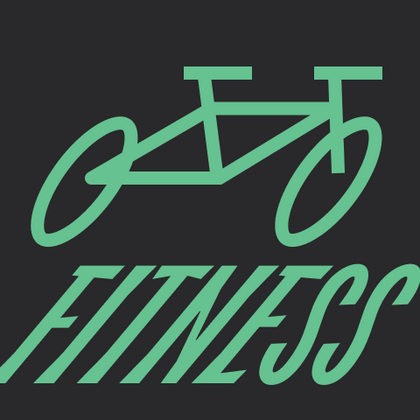
Fitness fonts
Creating an energizing atmosphere requires TypeType’s fitness fonts, where each letterform radiates strength and dynamism. These typefaces feature powerful geometric contours, dynamic angles, and motivating visual density that inspires athletic achievement. The collection includes fonts that maintain perfect clarity when applied to equipment, apparel, and promotional displays.
TT Bells combines the elegant softness of Antiqua with a complex and daring temper reflected in straight stroke terminals and arrowheaded serifs. The typeface is based on the broad nib, which creates these hallmark terminals and serifs.
TT Quaris is an exquisite, modern high-contrast sans whose design balances between soft and sharp. The glyph shapes in the font are fluid and tend towards roundness, yet there are also sharp elements.
TT Moons is a slim and contrast serif. This font family works especially smart in classic design themes. TT Moons is a typeface of the glyptal modern typeface.
TT Ramillas is a contemporary serif with editorial versatility. It features decorative styles and ornamental initials with floral motifs.
TT Biersal is a display sans serif with a free-spirited, playful, and adventurous nature. The concept of this font was sparked by a German poster from the early 1930s.
TT Tricks is a modern text serif with a design reflecting the style of Transitional serifs. This font has a calm, elegant, and moderately stern character.
The TT Ricordi font family is a collection of three display heading serifs.